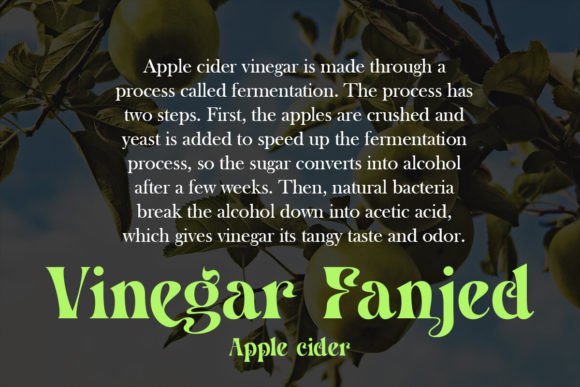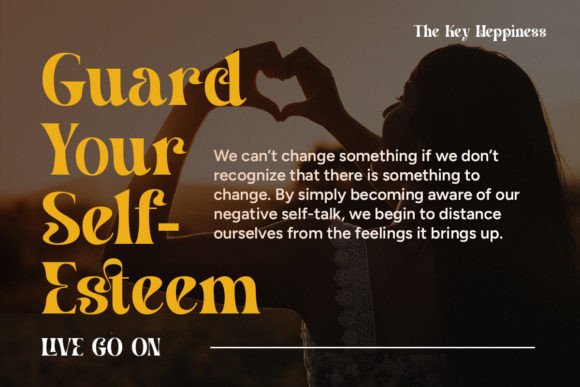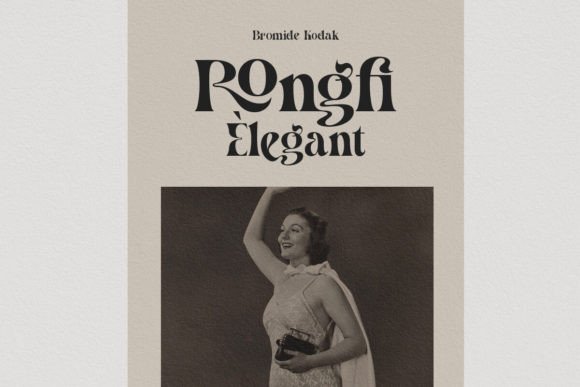
Introduction to Rostema Font Font
Fonts play a crucial role in design, and the Rostema Font font is a typeface that brings both character and versatility to any project. Whether you’re working on a branding project, a website, or a print design, the Rostema Font font offers a unique style that can elevate your work.
Introducing Rostema, a captivating blackletter serif display font that seamlessly bridges the gap between tradition and modern design.
This typeface is a testament to the timeless beauty of blackletter fonts, infused with a contemporary twist that makes it perfect for a wide range of creative applications Whether youβre designing posters, branding materials, invitations, or any other creative endeavor that demands a bold and distinctive typeface, Rostema is your go-to font.
Key Features of Rostema Font Font
Why Choose Rostema Font Font?
The Rostema Font font is more than just a typeface β it’s a design tool that helps you communicate your message with style and clarity. Its unique character set and versatile design make it suitable for a wide range of applications, from elegant invitations to bold headlines.
With its carefully crafted letterforms and balanced proportions, the Rostema Font font ensures readability and visual appeal across all mediums.
What makes Rostema Font font special?
The Rostema Font font stands out with its unique design, exceptional readability, and versatility across various design applications.